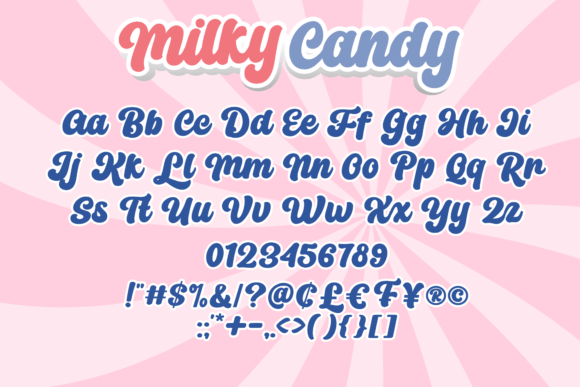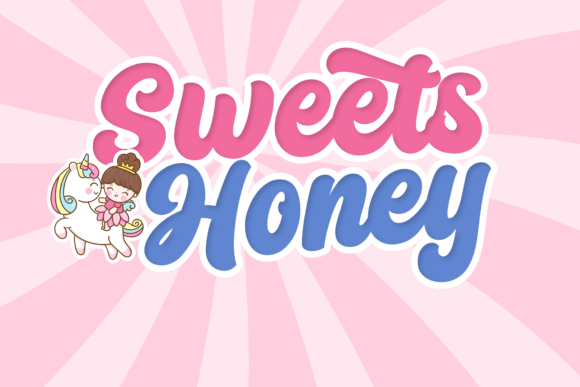
Milky Candy Font
Milky Candy is an adorable script font featuring a cool flow and chubby characters. It has beautiful and well-balanced characters, and as a result, it matches a wide pool of designs.